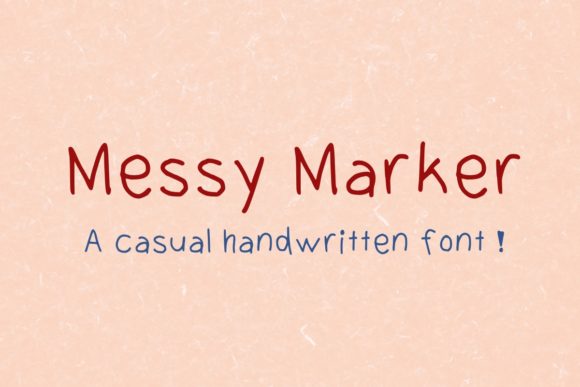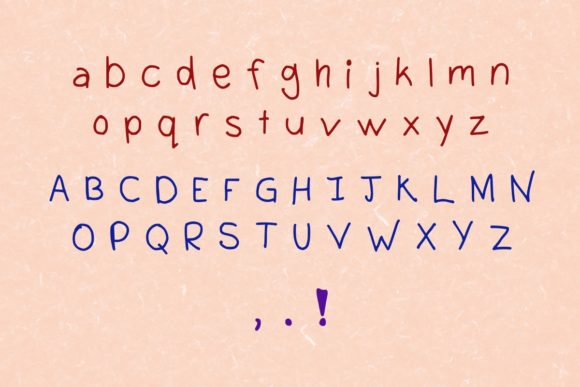
Messy Marker Font
About Messy Marker Font
Messy Marker is, as its name suggests, a raw and authentic script font that feels messy and casual. Get inspired by its personal vibe!